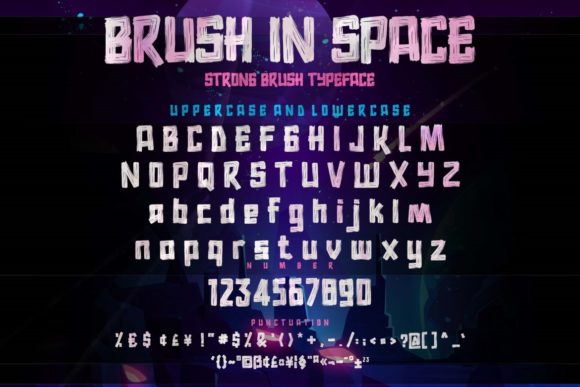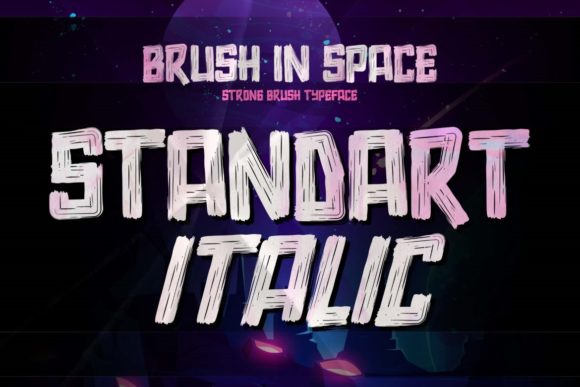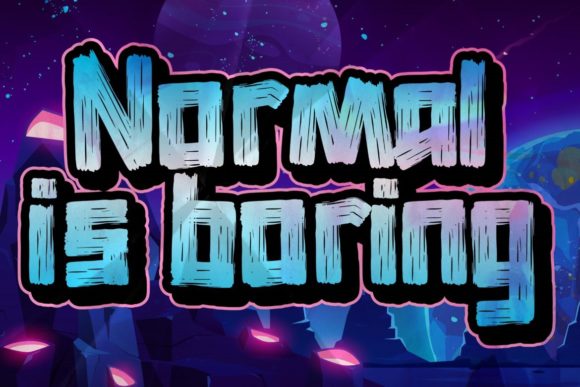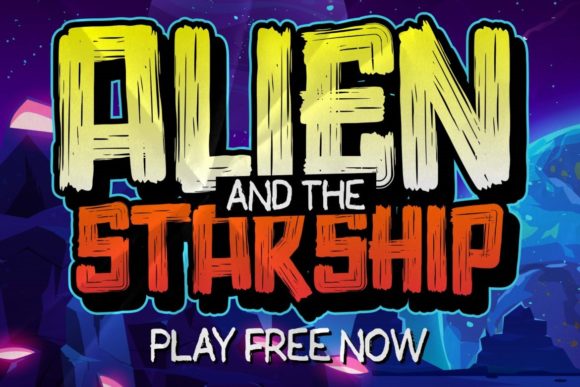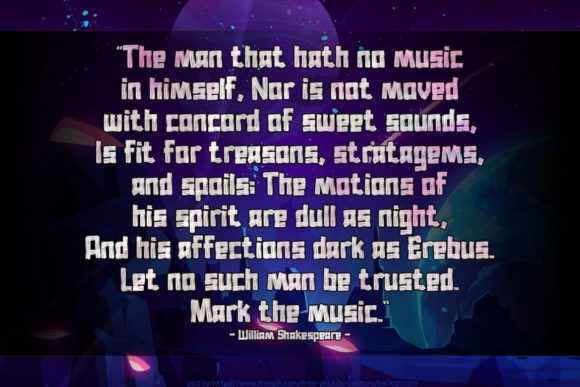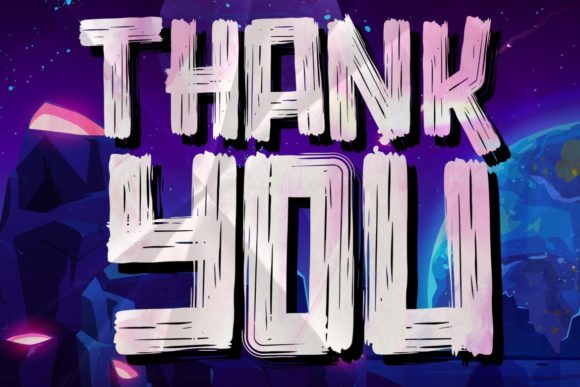
Introducing Brush in Space Font: Elevate Your Designs with a Bold and Brushed Display Font
Are you tired of using the same old fonts in your designs? Do you want to add a touch of personality and uniqueness to your creations? Look no further than Brush in Space Font, a bold and brushed display font that’s perfect for designers and crafters alike. In this article, we’ll explore the features and benefits of Brush in Space Font, and show you how it can elevate your designs to the next level.
What is Brush in Space Font?
Brush in Space Font is a bold and brushed display font that’s designed to make a statement. With its unique, hand-brushed texture, this font is perfect for adding a touch of personality to your designs. Whether you’re working on a logo, a poster, or a social media graphic, Brush in Space Font is sure to grab attention and leave a lasting impression.
Key Features of Brush in Space Font
- Bold and Brushed Texture: Brush in Space Font features a bold and brushed texture that gives it a unique, hand-crafted feel.
- High-Quality Design: This font is designed with high-quality craftsmanship in mind, ensuring that it looks great in any size or application.
- Versatile: Brush in Space Font is perfect for a wide range of design applications, from logos and posters to social media graphics and more.
- Easily Readable: Despite its bold texture, Brush in Space Font is surprisingly easy to read, making it perfect for headlines and titles.
Benefits of Using Brush in Space Font
So why should you choose Brush in Space Font for your next design project? Here are just a few benefits of using this amazing font:
- Adds Personality to Your Designs: Brush in Space Font is a unique and eye-catching font that’s sure to add personality to your designs.
- Elevates Your Brand: With its bold and brushed texture, Brush in Space Font can help elevate your brand and make it stand out from the competition.
- Perfect for Creative Projects: Whether you’re working on a creative project or just want to add some flair to your designs, Brush in Space Font is the perfect choice.
- Time-Saving: With Brush in Space Font, you can create stunning designs in no time, saving you time and effort.
Tips for Getting the Most Out of Brush in Space Font
- Use it as a Headline Font: Brush in Space Font is perfect for headlines and titles, so be sure to use it to grab attention.
- Experiment with Colors: Brush in Space Font looks great in a variety of colors, so don’t be afraid to experiment and find the perfect hue for your design.
- Pair it with Other Fonts: Brush in Space Font pairs well with a variety of other fonts, so feel free to get creative and find the perfect combination for your design.
In conclusion, Brush in Space Font is a bold and brushed display font that’s perfect for designers and crafters alike. With its unique texture and high-quality design, this font is sure to elevate your designs and add a touch of personality to your creations. Whether you’re working on a logo, a poster, or a social media graphic, Brush in Space Font is the perfect choice. So why wait? Download Brush in Space Font today and start creating stunning designs that stand out from the crowd!
- Is Brush in Space Font easy to read?: Despite its bold texture, Brush in Space Font is surprisingly easy to read, making it perfect for headlines and titles.